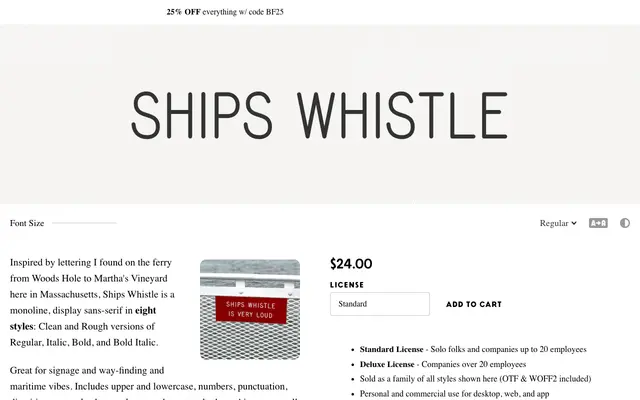
Ships Whistle
A monoline display sans-serif drawn from hand-lettered ferry signage on the Woods Hole to Martha's Vineyard route, available in clean and rough variants across four styles.
Inspired directly by lettering spotted on a Massachusetts ferry, the family comes in eight styles: Regular, Italic, Bold, and Bold Italic, each in both Clean and Rough versions. Extras include alternate character glyphs, maritime icons, swashy italic caps, and an ST/st ligature carried over from what may have been a printing error on the original sign. Best suited to signage, wayfinding and anything leaning into nautical or vintage American vernacular.
A monoline sans-serif designed specifically for display use, inspired by hand-painted ferry signage; the clean and rough variants reinforce its display and signage-oriented character.